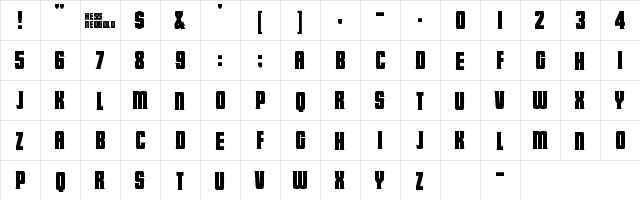
DXS Hess Neobold Regular
Design Context for DXS Hess Neobold Typeface
DXS Hess Neobold offers clean, dependable letterforms without strong stylistic allegiance, making it a practical choice for designers who need flexibility. Its bold stroke weight gives it real presence on the page.
Pro Tip: Pair DXS Hess Neobold with a font of contrasting weight or personality to build a more expressive typographic hierarchy.